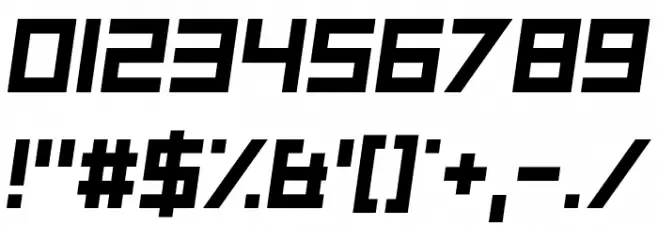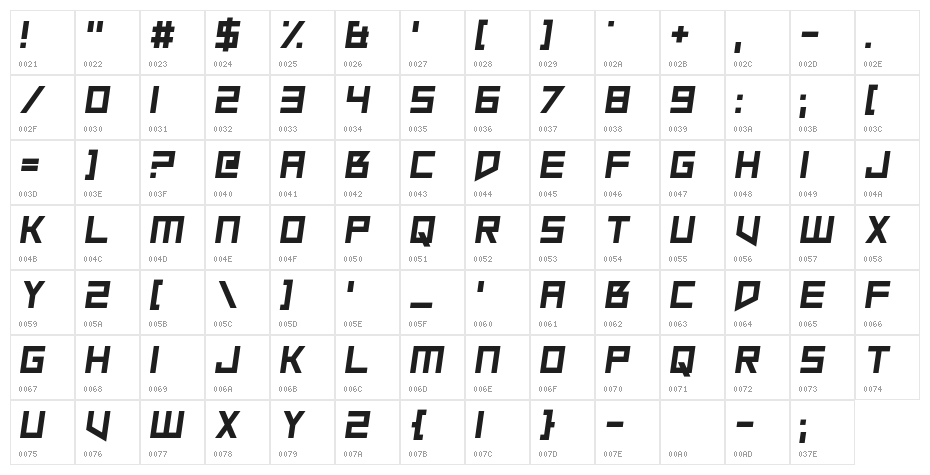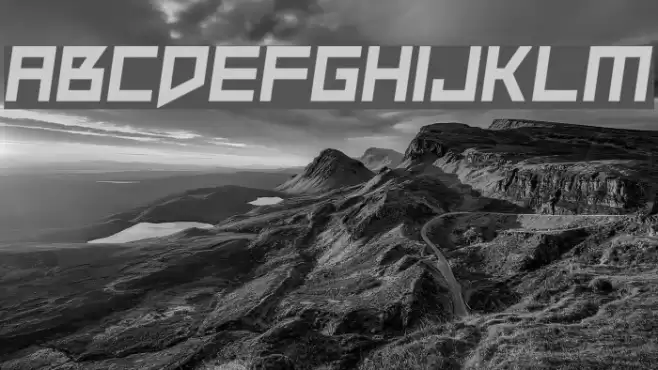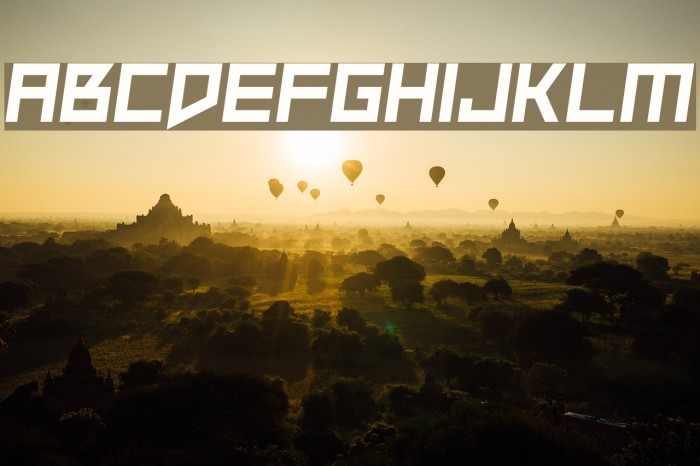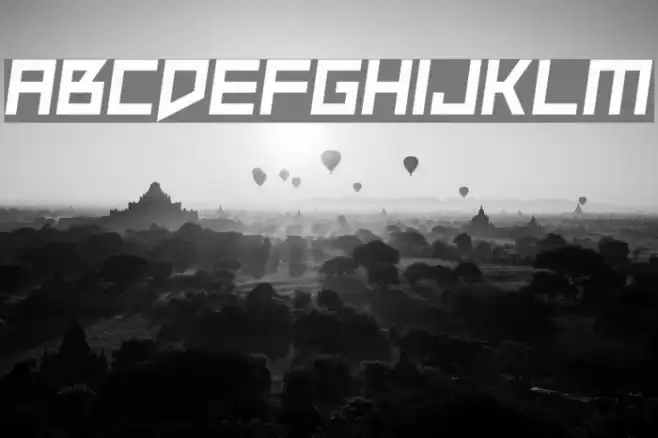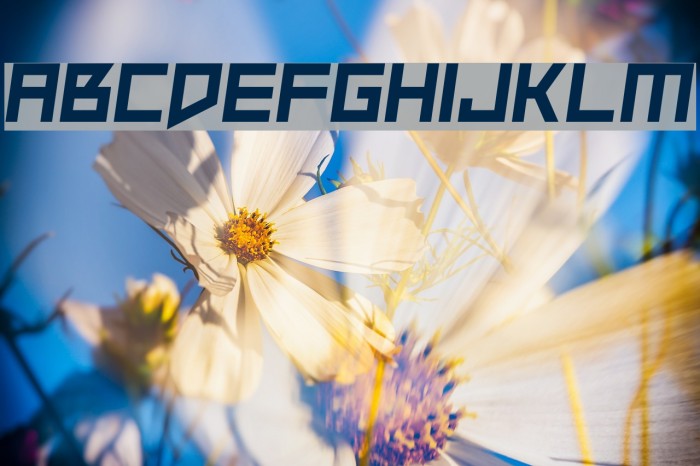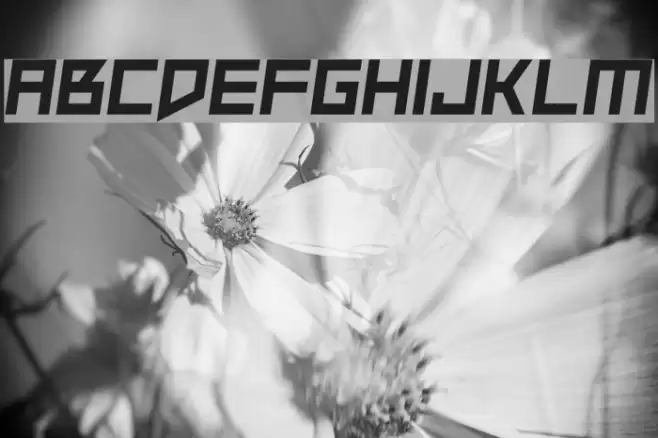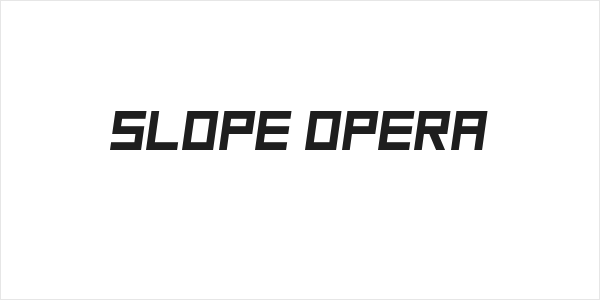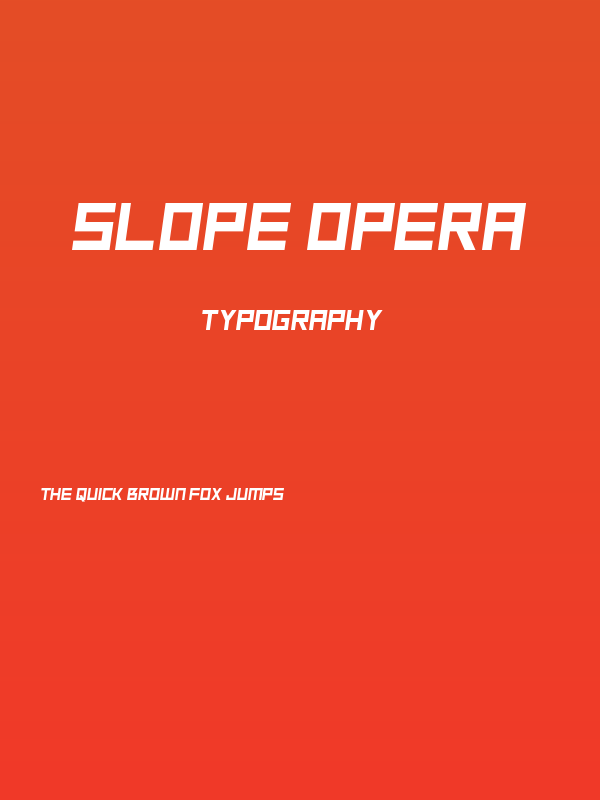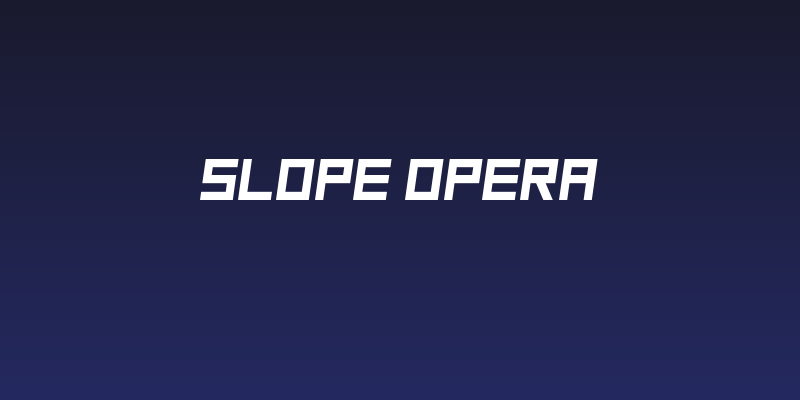
Slope Opera Font
Slope Opera Description
This font features a bold, angular design with a distinct slant, giving it a dynamic and modern appearance. The characters are constructed with sharp, geometric lines and a consistent stroke width, creating a cohesive and impactful look. The uppercase letters are particularly striking, with unique cuts and angles that add to the font's edgy aesthetic. The numerals and special characters maintain the same bold style, ensuring uniformity across all glyphs. This font's strong presence and contemporary style make it suitable for projects that require a bold statement.
| Proposed Projects | Ideal for sports branding, tech logos, dynamic posters, and modern web design. |